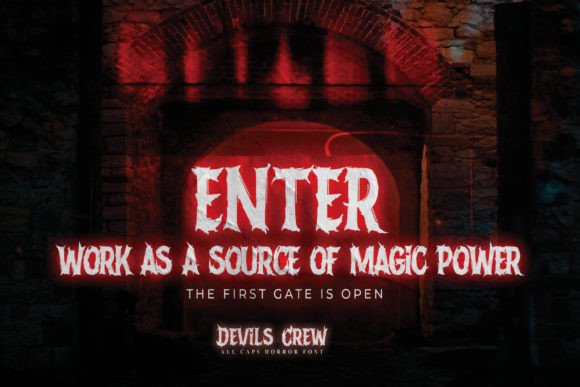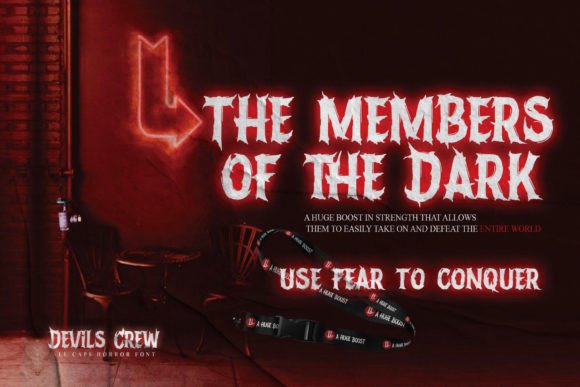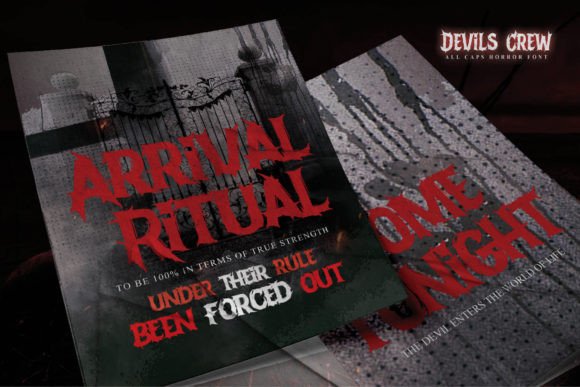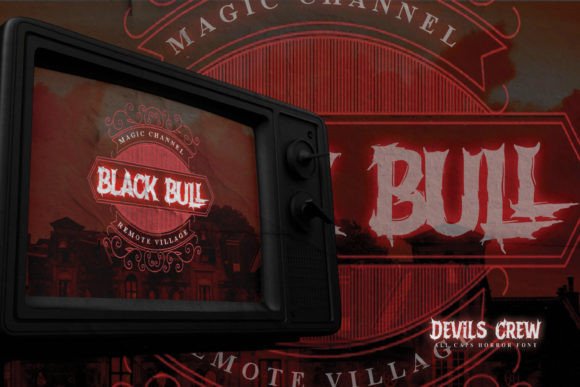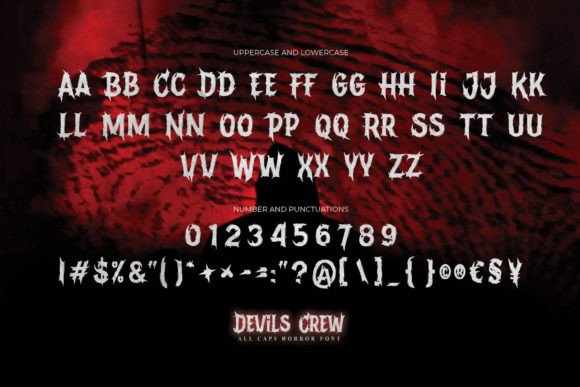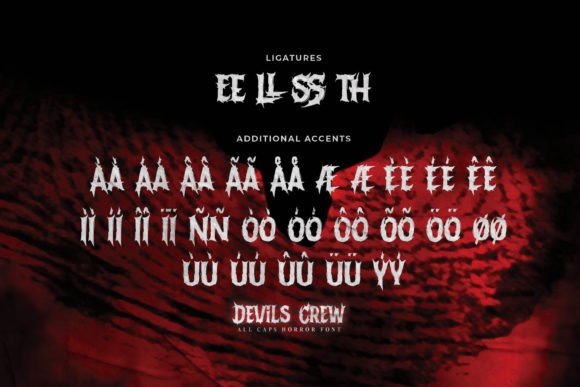
The Dark Side of Typography: Unleashing the Power of Devils Crew Font
As designers, we’ve all been there – staring at a blank page, trying to conjure up the perfect font to convey the mood and atmosphere of our project. For me, it’s like searching for the perfect key to unlock the door to a world of creativity. And sometimes, that key comes in the form of a bold, dramatic font that screams ‘attention’ and demands to be noticed.
Enter Devils Crew Font, a clear and dramatic all-caps horror display font that’s perfect for making a lasting impression. With its versatility and wide range of applications, this font is a game-changer for designers looking to add an extra layer of depth and emotion to their designs. Whether you’re creating logos, printed quotes, or product packaging, Devils Crew Font is sure to be a valuable addition to your design toolkit.
- Unique Characteristics: Distressed, grungy, and edgy design, perfect for rock, metal, and punk music-related projects, or for adding a rebellious touch to your designs.
Devils Crew Font Review
As a designer, I was excited to dive into the Devils Crew Font and see what it had to offer. Here’s my honest review:
The Devils Crew Font is a solid, gothic-inspired font that’s perfect for those looking for a bold and edgy aesthetic. I appreciate the detailed, intricate design elements that give this font its unique character.
- Unique and detailed design elements
- Perfect for gothic or horror-themed designs
- Available in a range of weights and styles
While the Devils Crew Font is a great addition to any designer’s toolkit, it’s not without its limitations. Here are a few things to keep in mind:
- May not be suitable for all types of projects (e.g. children’s books or family-friendly designs)
- Can be overwhelming in large quantities or in certain color schemes
- Some letters and symbols may not be as polished as others
Overall, I think the Devils Crew Font is a great option for designers looking to add some edge to their projects. While it may not be perfect for every project, it’s a solid choice for those looking for a bold and unique font. With a little creativity and restraint, this font can really help take your designs to the next level.
Tips for Getting the Most Out of Devils Crew Font
Use Devils Crew Font for bold and eye-catching headings and titles.
Combine Devils Crew Font with other fonts to create a unique and interesting typography style.
Experiment with different font sizes and colors to achieve the desired look.
Devils Crew Font is perfect for:
Creating bold and eye-catching headings and titles.
Designing logos and branding materials.
Creating social media graphics and posts.